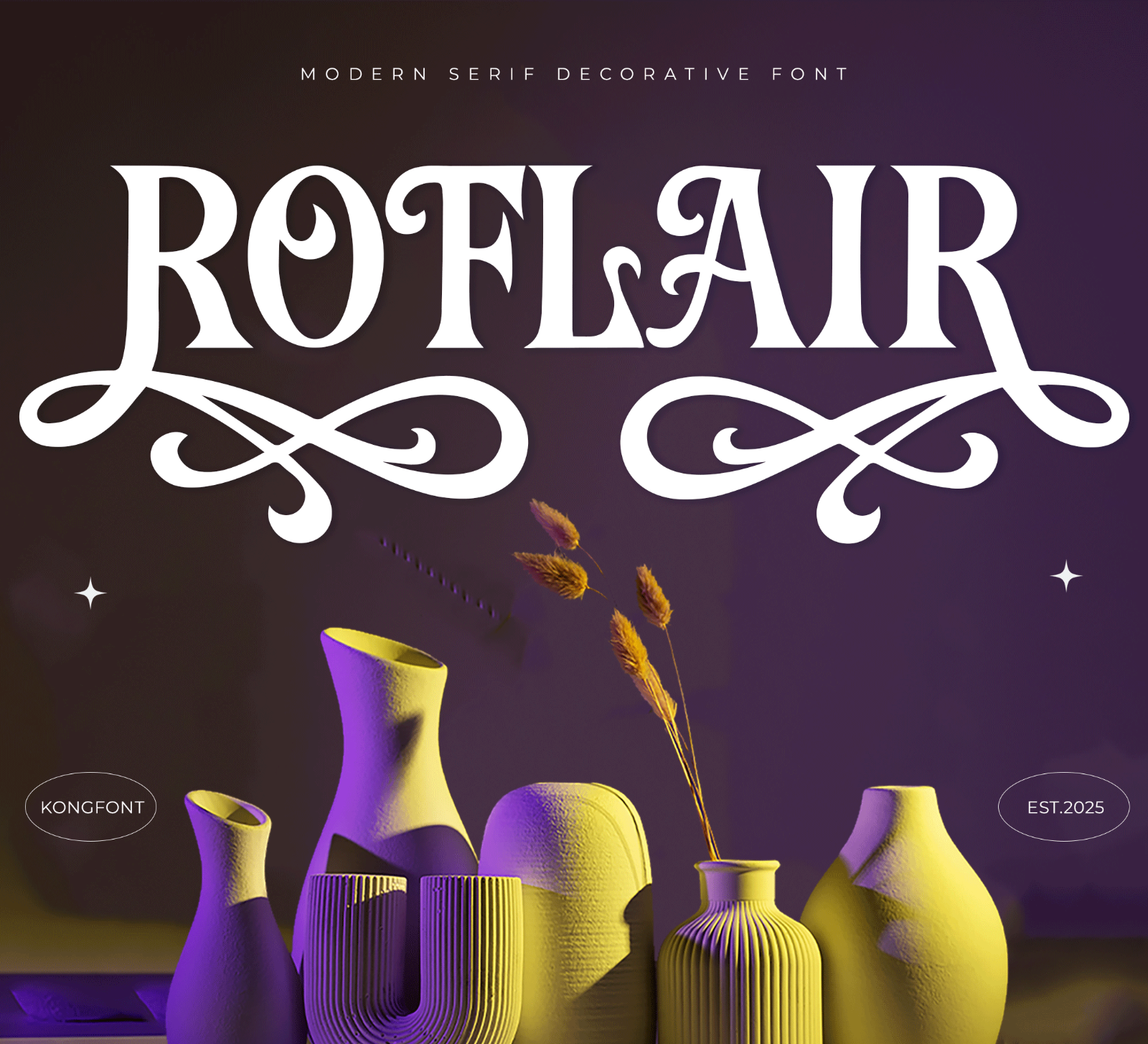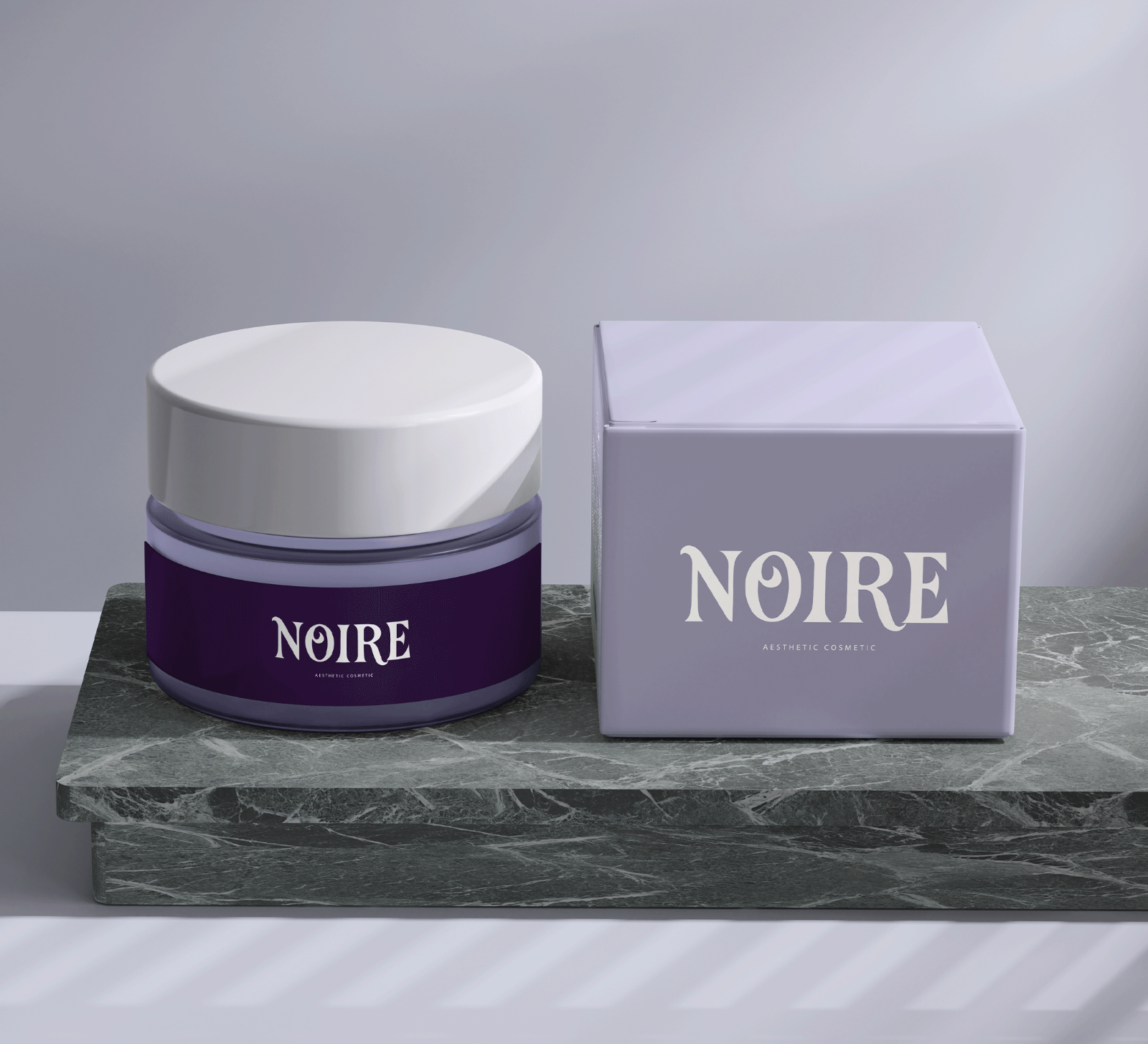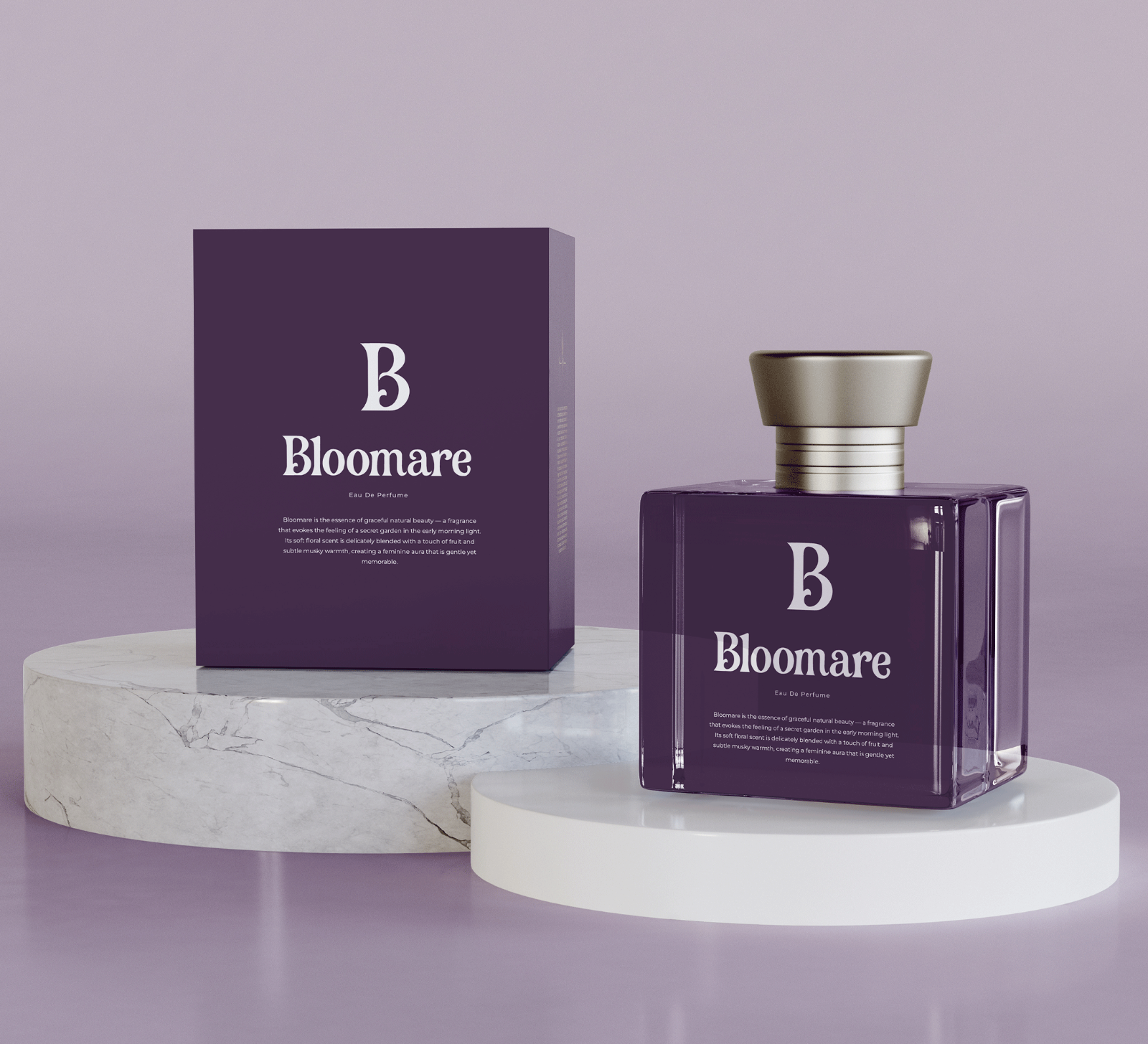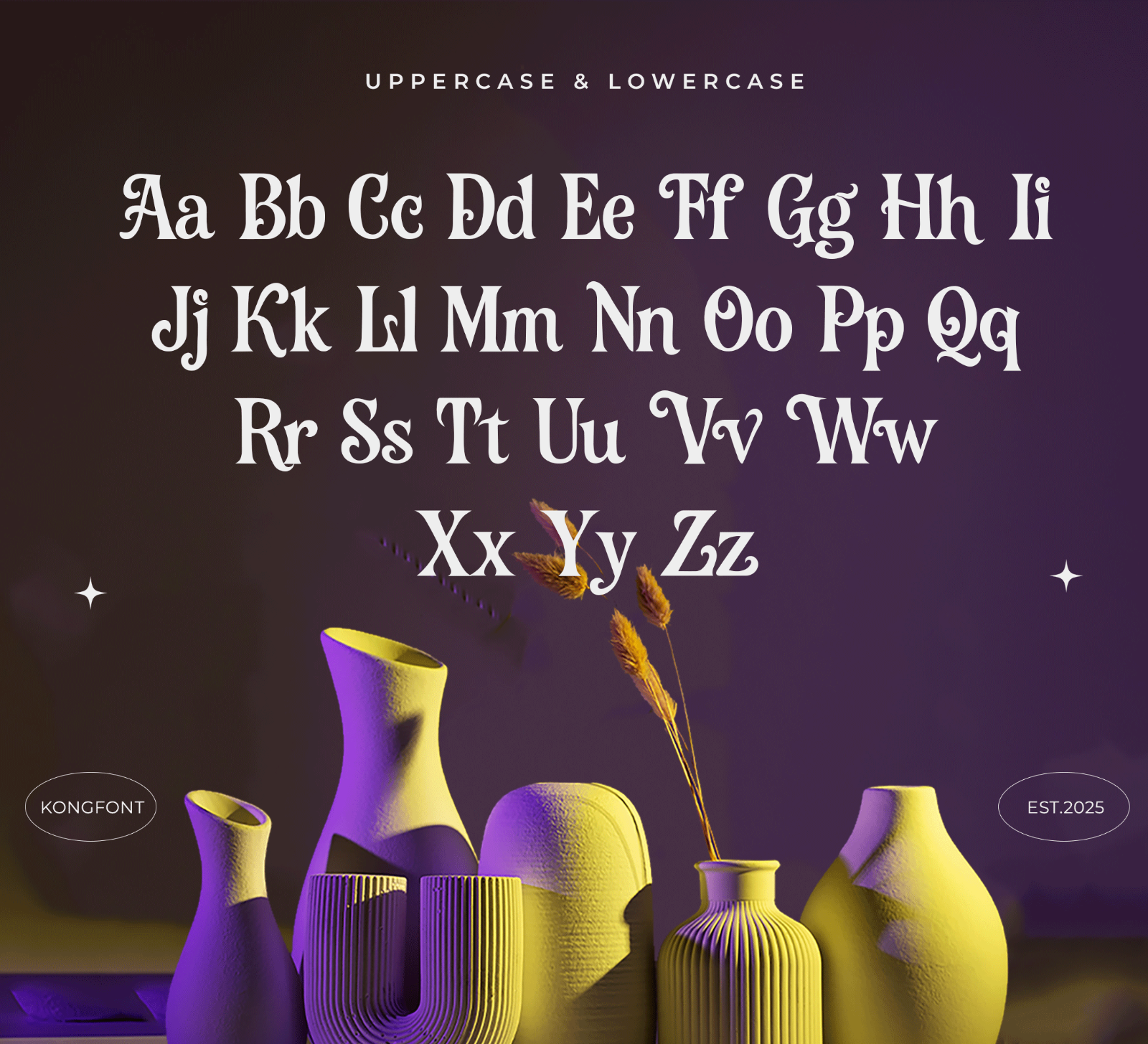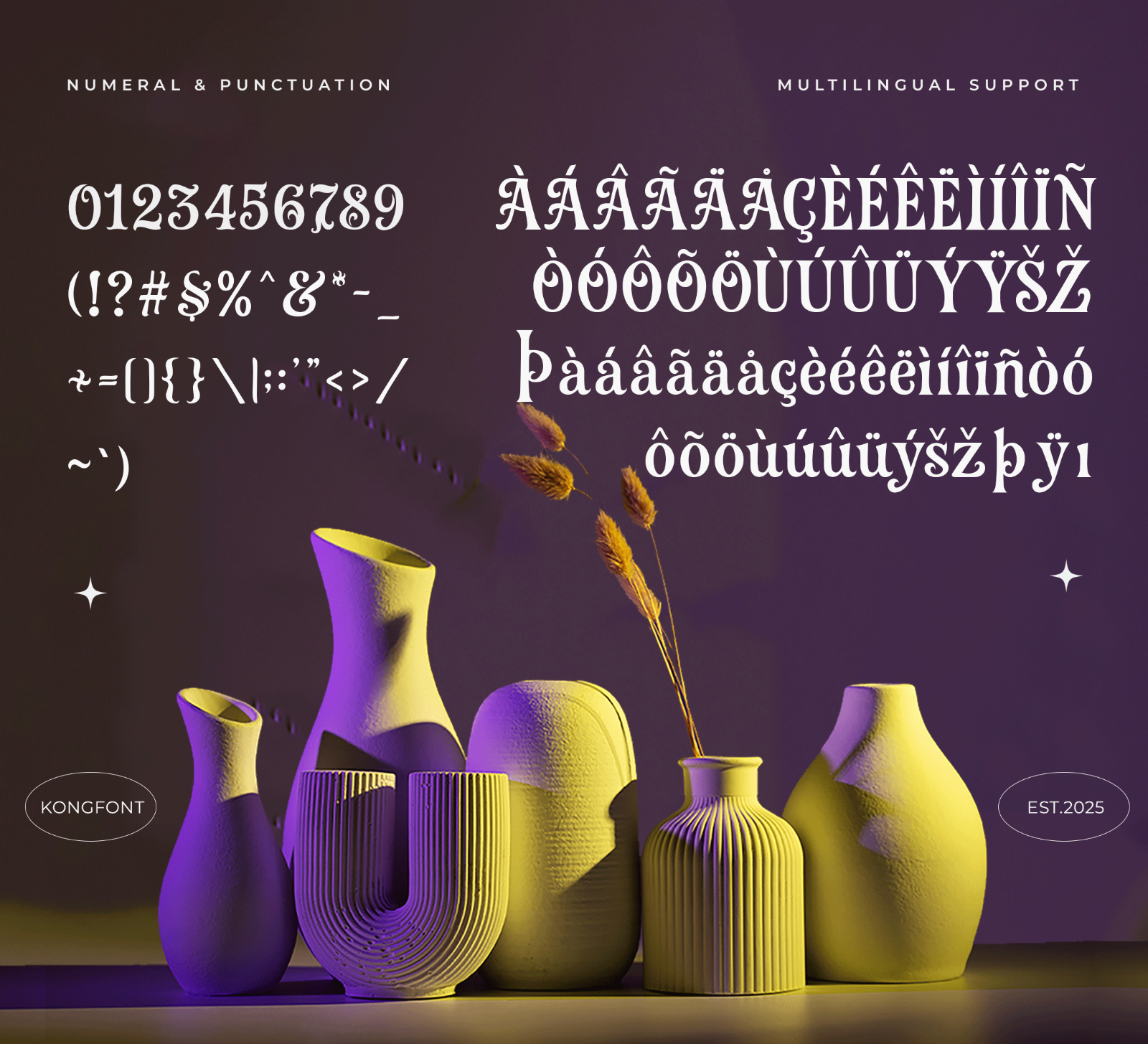
Roflair is a modern decorative serif font with bold letterforms, elegant curves, and a classy contemporary style. Its distinctive character makes it perfect for eye-catching branding, headlines, and stylish display designs.
• Branding
• Logos
• Business cards
• Blog headers
• Quotes
• Editorial titles
• Packaging
• Creative typography